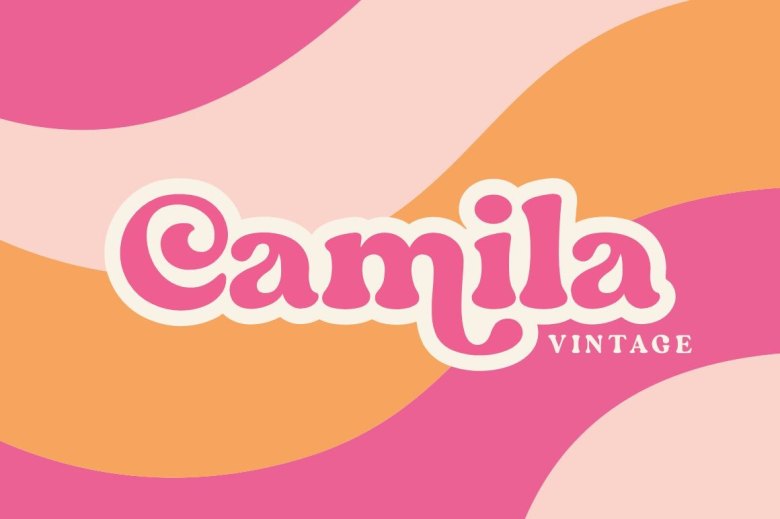
Camila Vintage Font
Camila Vintage is an elegant modern serif font with OpenType features to provide access to various fonts. Designed to enhance any design you prefer, Camila Vintage contains uppercase and lowercase punctuation, numerals, letters and multilingual symbols that work beautifully when used for headlines, logos, signage or formal formats like invitation labels, books, magazines, logo packaging,
Camila Vintage Retro Font